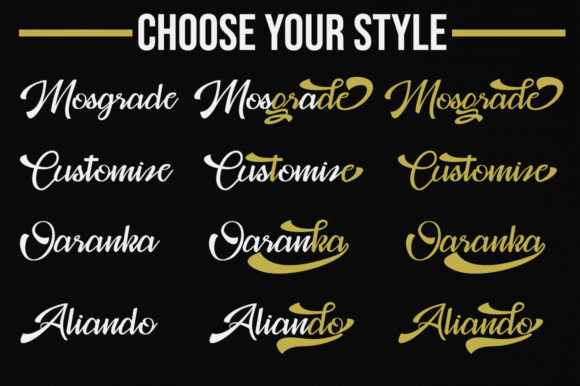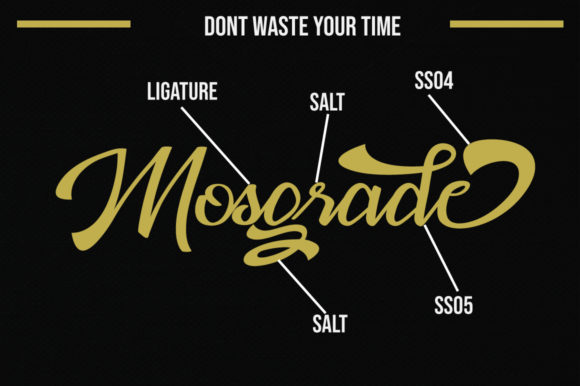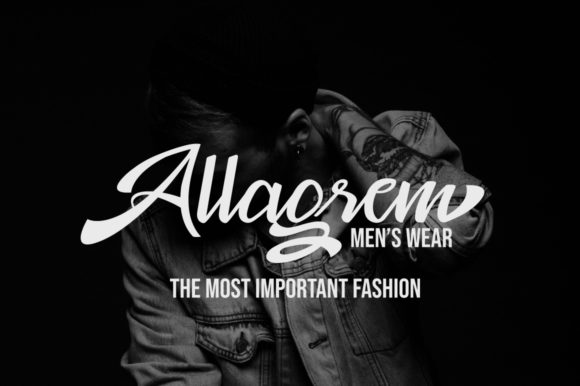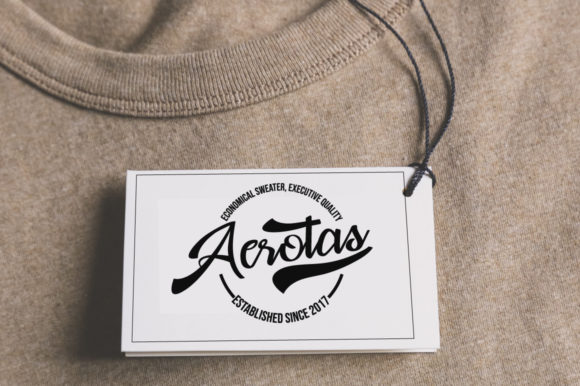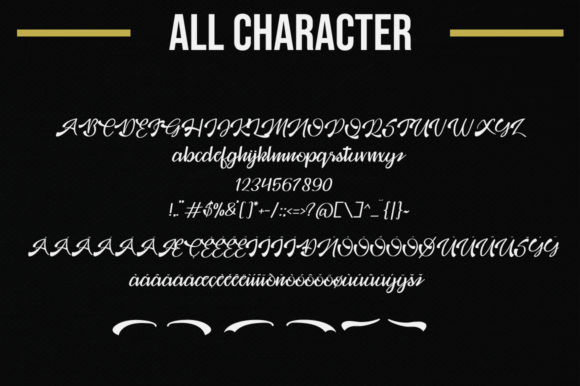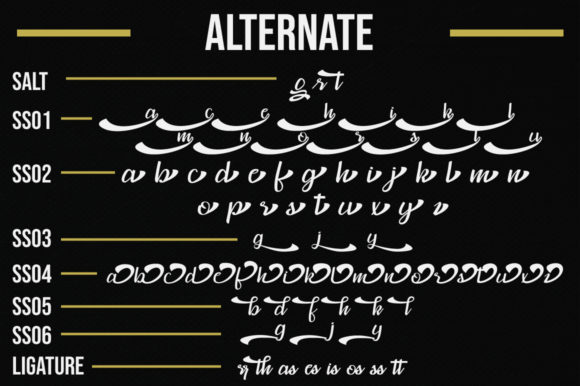
Mosgrade Font
About Mosgrade Font
Mosgrade is an modern handwritten script font that will effortlessly put a unique charm on any design idea. Get inspired by its bold elements and vintage feel.